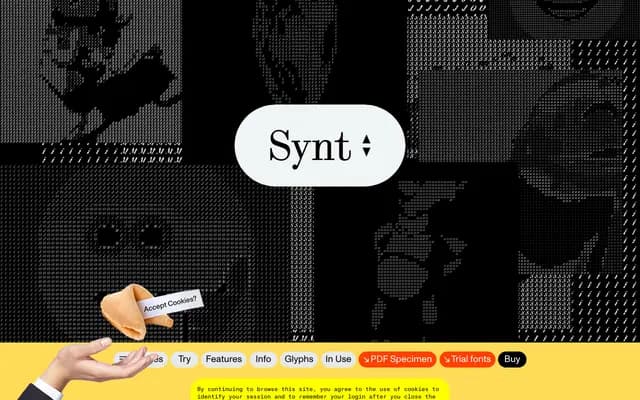
ABC Synt specimen from Dinamo Typefaces
A unitised modern-face revival of a 1900 De Vinne typeface with three slant styles (16 deg, slanted 16 deg, Turbo 32 deg) for streaming-era display.
A modern face by Kaj Lehmann for Dinamo, drawn from a typeface used in a 1900 book by commercial printer Theodore Low De Vinne and reframed for apps, podcasting and streaming. Synt's parametric rhythm holds an identical distance between and within every stem, and the family ships with six weights, a Mono cut and three styles of italics: True Italics (16 degrees), a Slanted variation (16 degrees), and a Turbo Slant at 32 degrees. The variable font slides through the full slant range. Stylistic sets cover Schoolbook alternates, Beethoven alternates (b, d, q, p), centred dieresis, alternate '@', and circled numbers.
Dinamo describe Synt as a unitised reimagining of 19th-century modern faces complete with variable slant modulation and an emphatic rhythm, taking its logic and shapes from a typeface used in a 1900 book by influential commercial printer Theodore Low De Vinne.